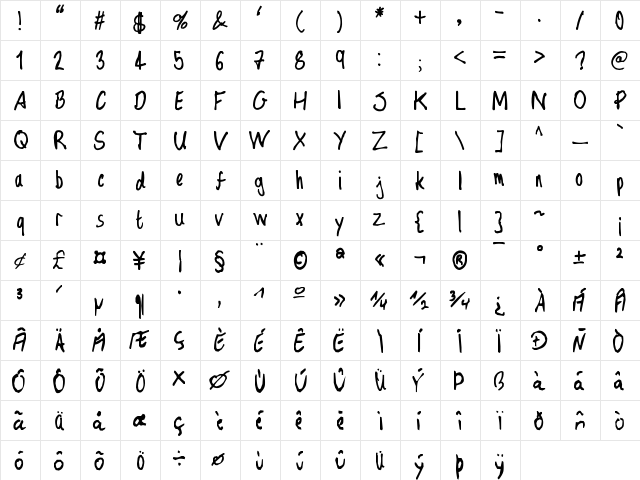
QEJG Regula Font Preview
QEJG Regula
Design Context for QEJG Typeface
QEJG is a composed and adaptable typeface that performs quietly and consistently across a wide range of design contexts.